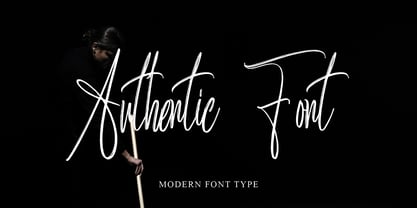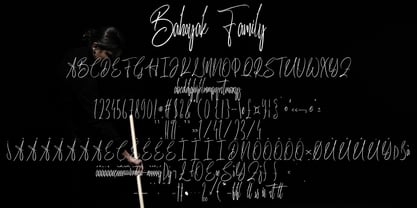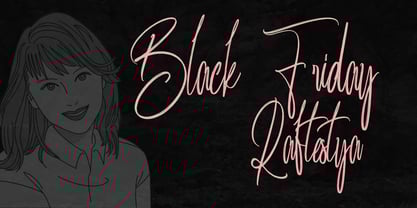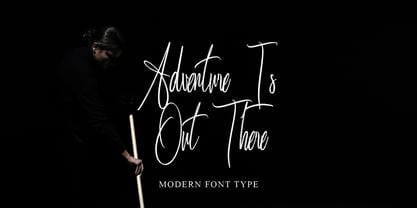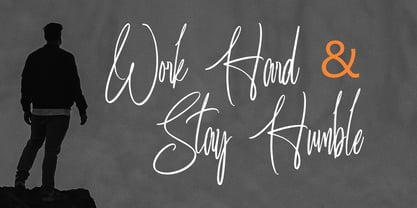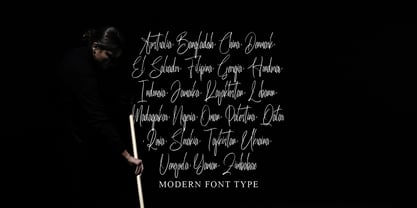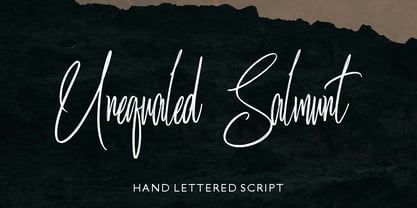
Unequaled Salmunt
by Gian Studio
The Unequaled Salmunt Font Family was designed by Yusliana M Isa and published by Gian Studio. Unequaled Salmunt contains 1 styles. More about this family
Unequaled Salmunt, an elegant brush font with a wide selection of styles to suit your needs!
Unequaled Salmunt is perfect for titles, logos, product packaging, branding projects, magazines, social media, weddings, or simply to express words on a background.
Unequaled Salmunt also comes with multilingual support.
Designer: Yusliana
Publisher: Gian Studio
Foundry: Gian Studio
Design Owner: Gian Studio
Designers: Yusliana M Isa
Foundry: Gian Studio